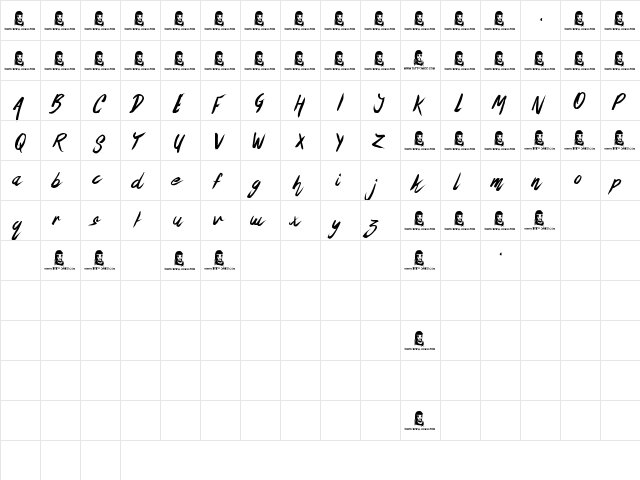
The Oyster Bar Regular
| Foundry | Jonathan S. Harris |
| Designer | Jonathan S. Harris |
Design Context for The Oyster Bar Typeface
The Oyster Bar is a composed and adaptable typeface that performs quietly and consistently across a wide range of design contexts.